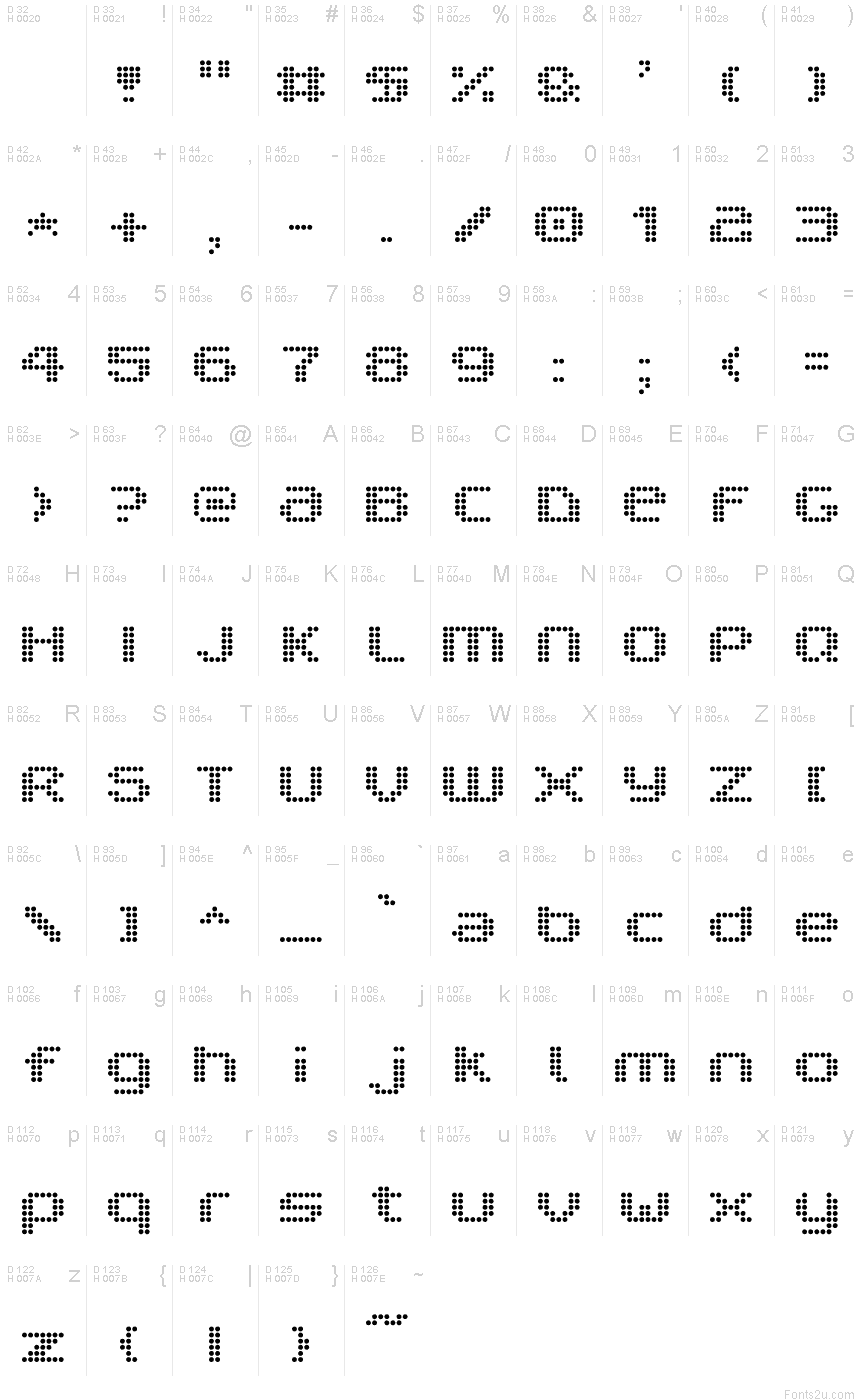
V5 Prophit Dot
V5 Prophit Dot by Roberto Christen is a free digital dot-matrix display font with a blunt, electronic rhythm. The letters are built from large circular dots, giving the caps a low-resolution signage feel that lands somewhere between early computer screens, scoreboard graphics, and programmable LED messaging.
It fits poster headings, arcade-inspired branding, music flyers, title cards, and short packaging lines where that gridded pulse can do the talking. As a free font, it also makes sense for interface mockups, retro event graphics, or monogram-like initials, since the chunky dot pattern gives even brief words a clear mechanical character.